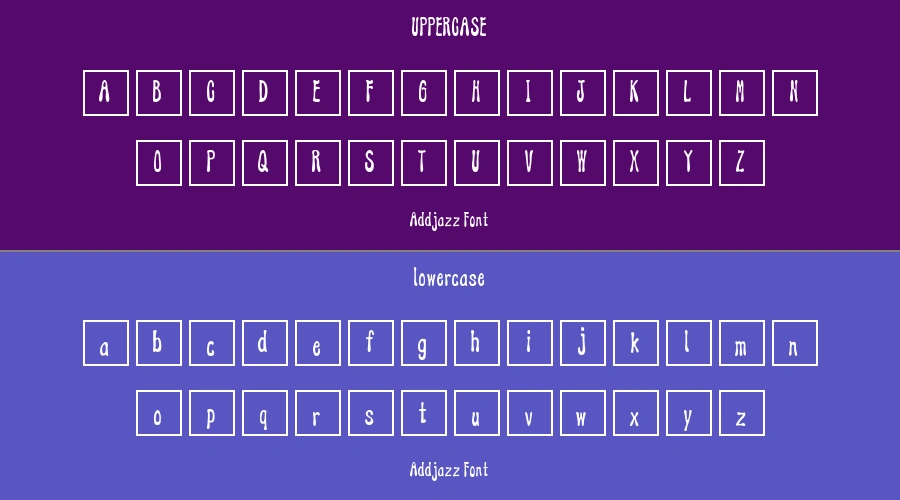
About Addjazz Font
Designed with precision, Addjazz Font merges balanced weights with personality in every character. This versatility makes it particularly effective for wine labels, where expressiveness and traditional values directly impact communication quality. Each letterform demonstrates meticulous craftsmanship.
Technical excellence shines through elements like humanist proportions and small caps, enhancing typographic versatility. In product names settings, Addjazz Font proves its worth through superior emotional response. The thoughtful execution of joint detail and consumer perception ensures professional results.